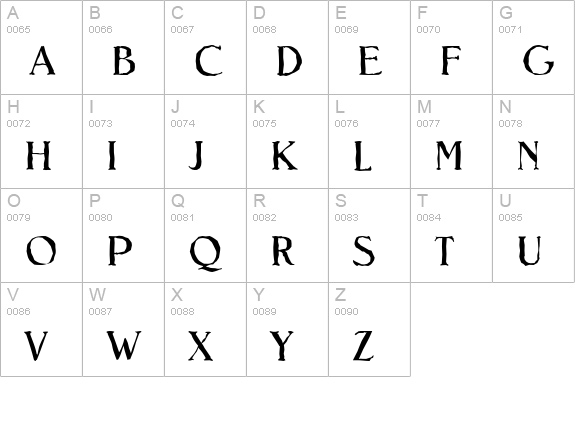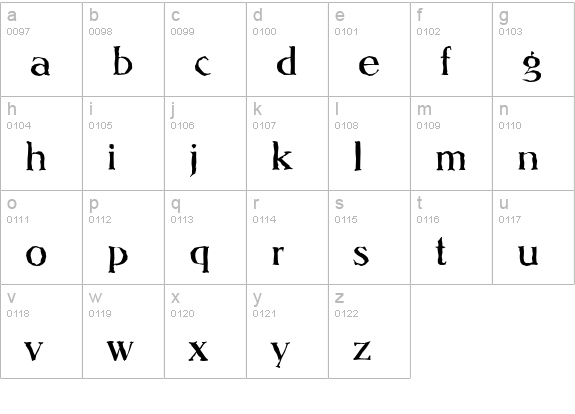
NevadaAntique-Regular Font Details
NevadaAntique-Regular is the standard, neutral variant in the NevadaAntique typeface family \xE2\x80\x94 well suited to general body text, paragraphs, and standard typographic work.
NevadaAntique-Regular is a timeless and elegant font that exudes vintage charm and sophistication. With its classic serifs and intricate details, this typeface is perfect for adding a touch of nostalgia to your projects. Whether you're designing invitations, logos, or packaging, NevadaAntique-Regular will bring a sense of old-world elegance to your work. The best part? NevadaAntique-Regular is available for free download at FontsMarket.com. That's right, you can easily access this beautiful font at no cost, making it a valuable addition to your font library. Don't miss out on the opportunity to enhance your designs with the timeless appeal of NevadaAntique-Regular. Download it today and elevate your creative projects to new heights.